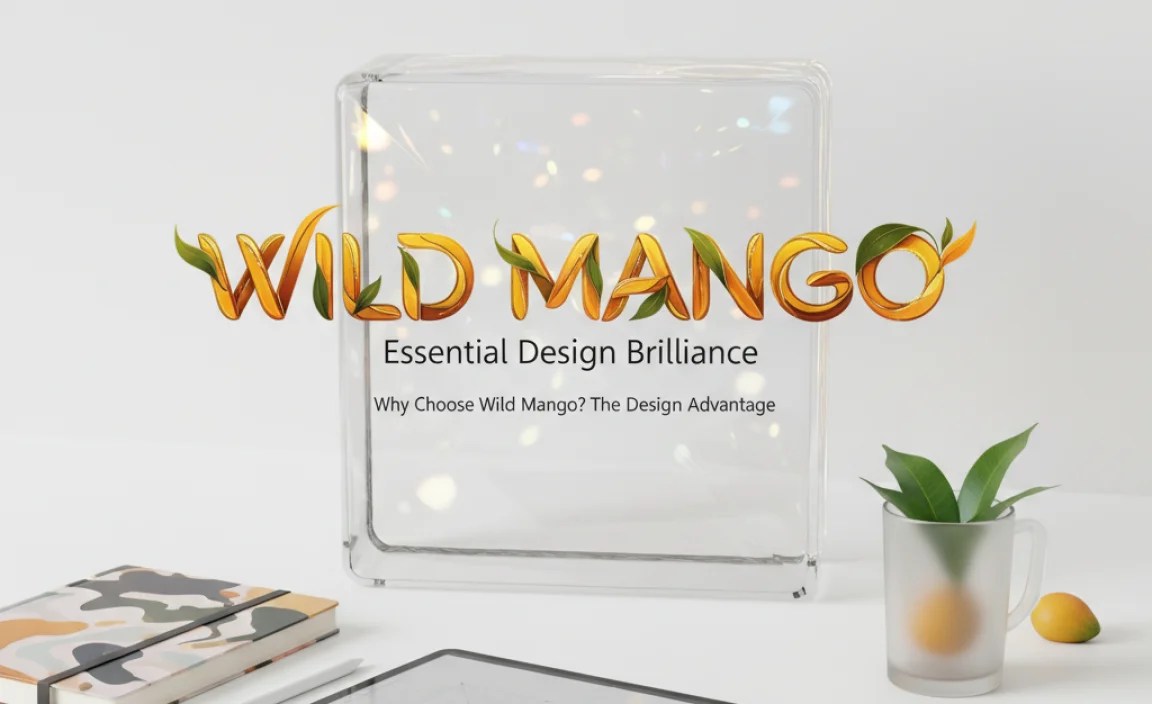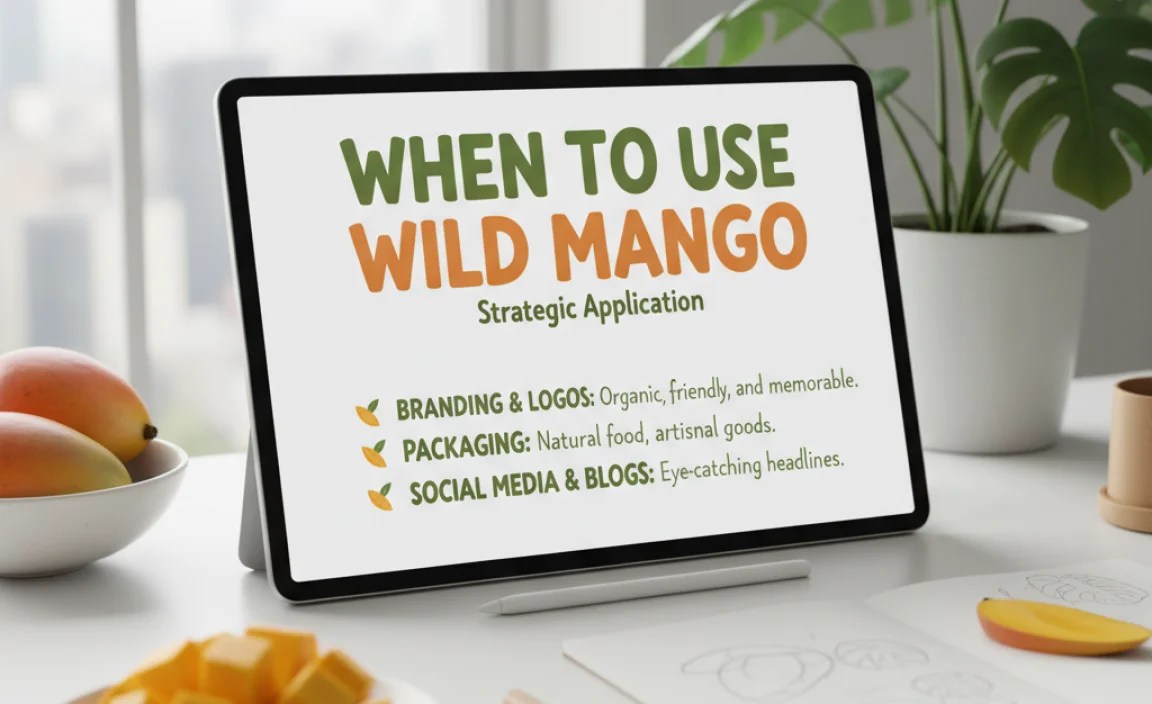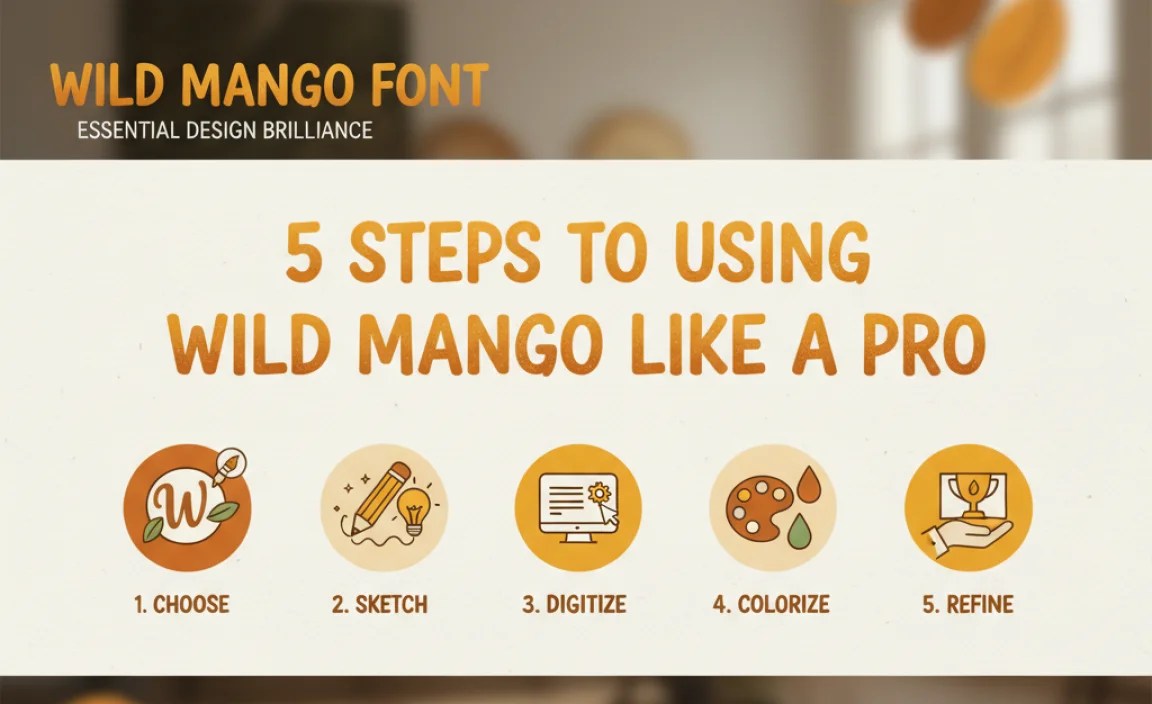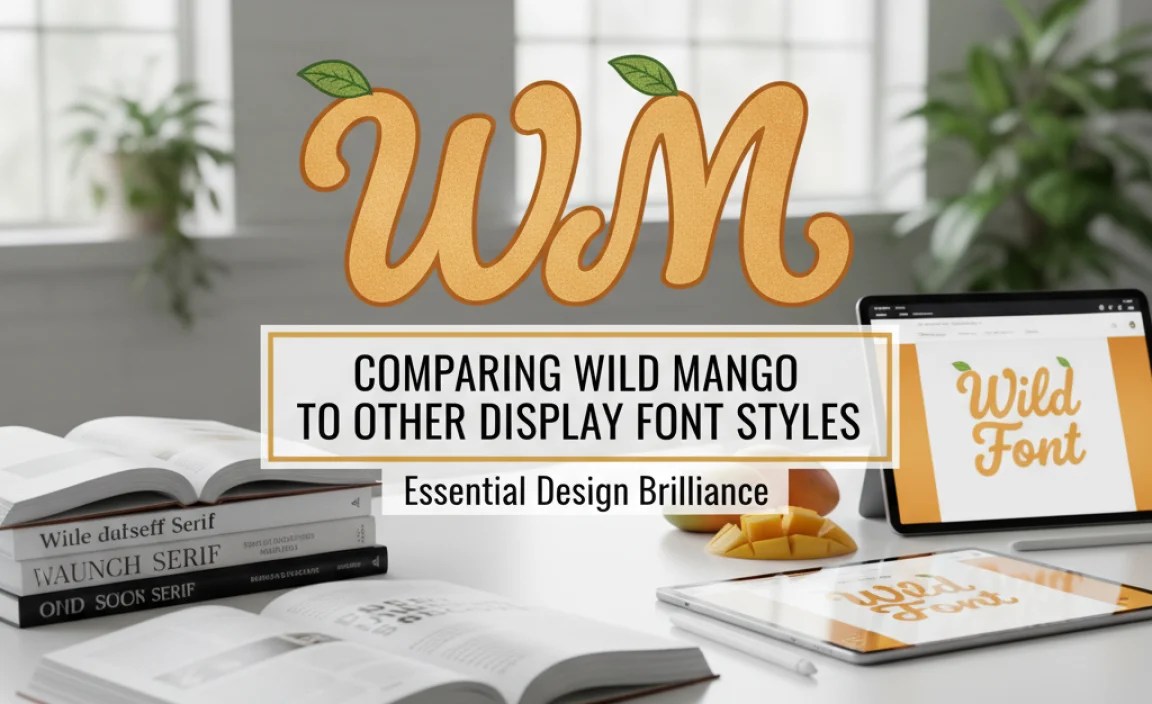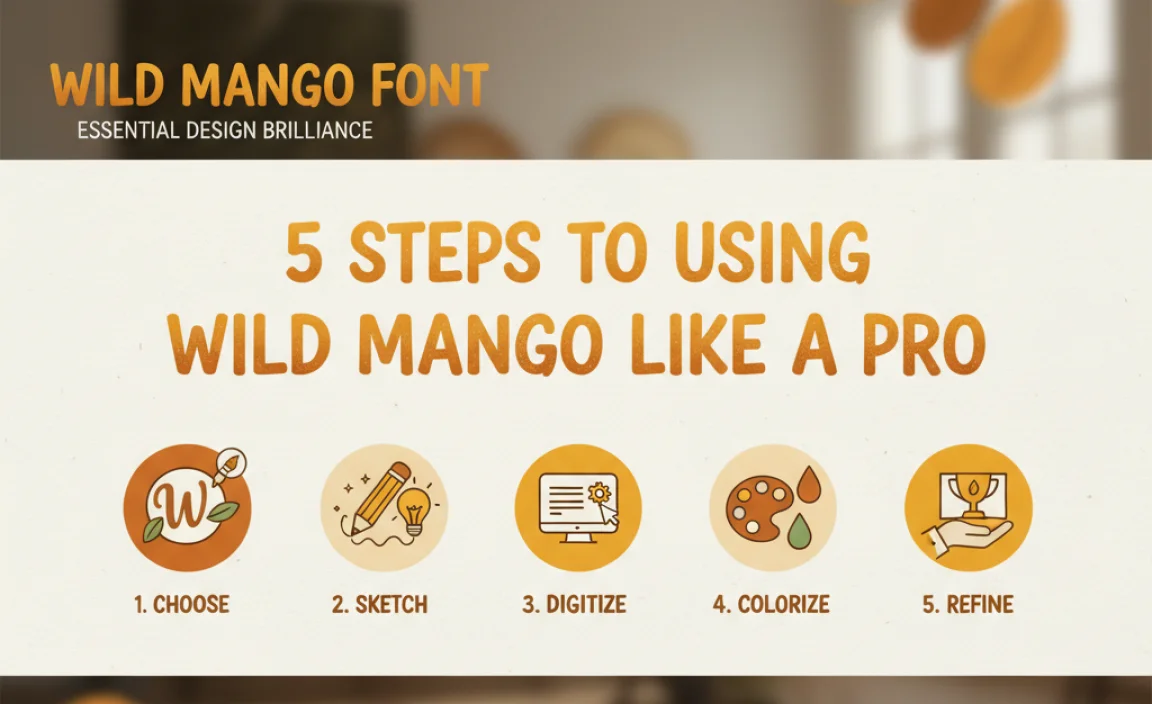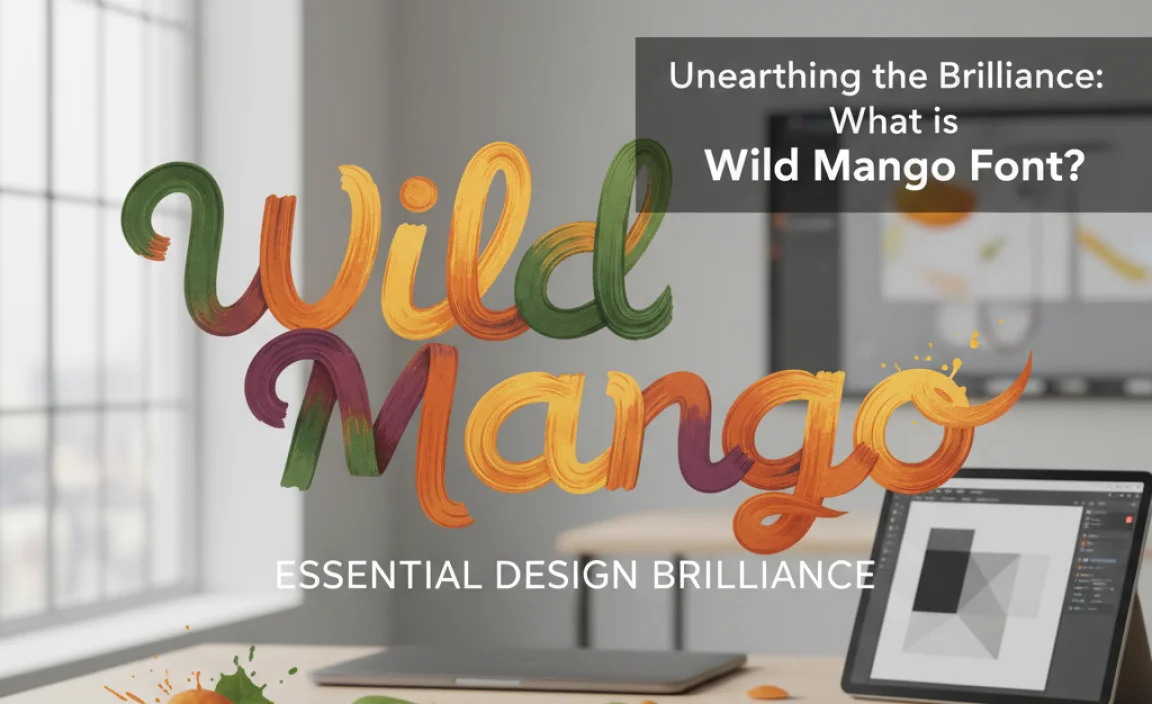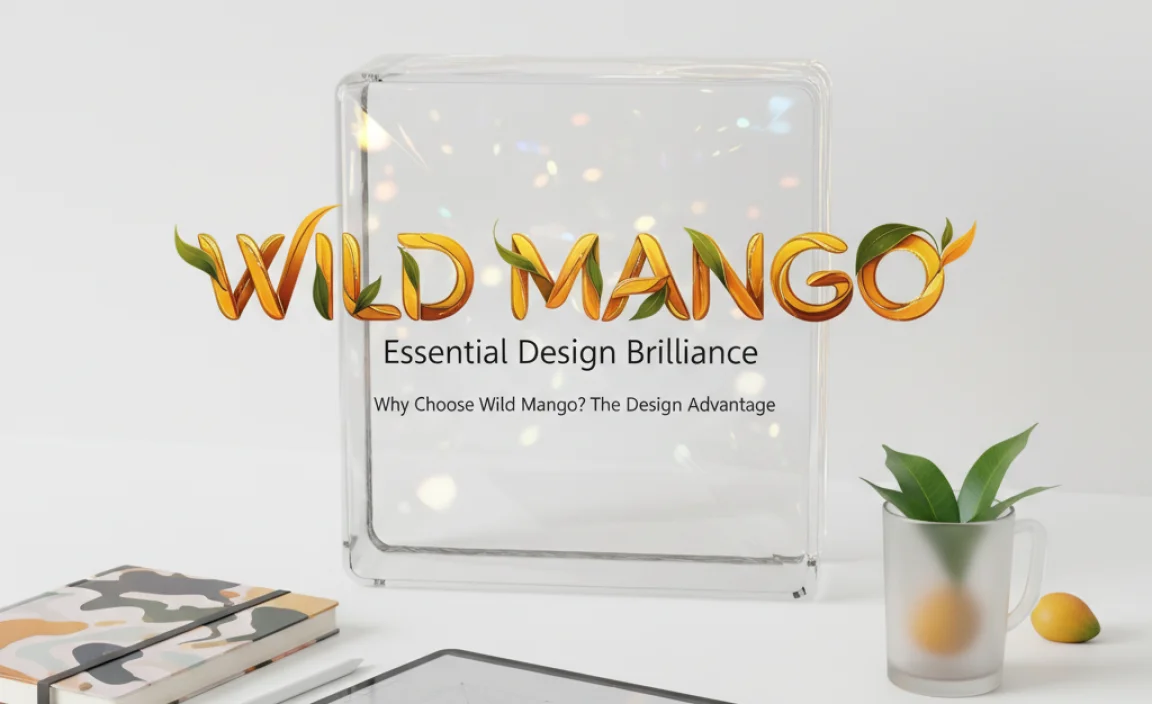
Wild Mango Font is a vibrant, playful, and eye-catching display typeface, perfect for adding personality and a touch of organic charm to branding, headlines, and creative projects where personality is key. Its unique character makes designs memorable and engaging.
Ever feel like your designs are a bit… bland? You’ve got great ideas, but the visuals just aren’t popping. Choosing the right font can feel like cracking a secret code, especially when you want something that truly stands out.
Many creatives struggle to find fonts that balance personality with readability. You want something unique, something that speaks to your brand’s spirit, but you also need it to be easy on the eyes. It’s a common design challenge!
But don’t worry! Today, we’re diving into a font that can inject serious brilliance into your projects. We’ll explore exactly what makes the Wild Mango font special and how you can use it to create stunning designs. Get ready to add a splash of wild creativity to your toolkit!
Unearthing the Brilliance: What is Wild Mango Font?
The Wild Mango font isn’t just another typeface; it’s an experience. Imagine the tang of a perfectly ripe mango, the untamed beauty of nature, and a touch of playful energy all rolled into one. That’s the essence of Wild Mango. It falls into the category of display fonts, meaning it’s designed primarily for impact in larger sizes, like headlines, logos, and short bursts of text, rather than long paragraphs.
Born from a desire to break away from the predictable, Wild Mango often features characteristics that lend it a unique, almost handcrafted feel. Think subtle irregularities, dynamic strokes, and shapes that feel organic and free-spirited. It’s the kind of font that makes people look twice and feel a connection.
It’s not just about looks, though. The brilliance of Wild Mango lies in its versatility when used appropriately. While its primary strength is in grabbing attention, clever designers can harness its energy to convey specific emotions and brand identities. This makes it a powerful tool for those looking to make a distinct visual statement.
The Anatomy of Wild Mango: Key Design Features
What exactly gives Wild Mango its distinctive personality? Let’s break down its key design elements. Understanding these features will help you appreciate why it works so well in specific contexts.
- Organic Shapes & Strokes: Unlike geometric or strictly formal fonts, Wild Mango often incorporates curves and lines that mimic natural forms. This can give it a fluid, hand-drawn, or brushed appearance.
- Playful Variations: You might notice slight variations in stroke thickness, baseline shifts, or letter heights. These imperfections aren’t flaws; they’re intentional design choices that contribute to its unique, approachable character.
- Expressive Modifiers: Often, display fonts like Wild Mango come with a range of stylistic alternates, swashes, or ligatures. These can add extra flair and customization, allowing for a truly unique typographic composition.
- Bold & Impactful: Its design is typically robust, ensuring it stands out even next to strong imagery or other design elements. This makes it ideal for headers and titles that need to command attention.
- Sense of Movement: The flow of the letters, the curves, and the overall structure can create a feeling of dynamism and energy. It’s a font that feels alive and engaging.
Where Does Wild Mango Come From? Understanding Font Families
It’s important to note that “Wild Mango” might refer to a specific font created by a particular designer, or it could be a style descriptor for a family of fonts that share similar characteristics. When you’re looking for this kind of font, you might encounter variations or fonts with similar wild, organic vibes. Designers often create font families with different weights (light, regular, bold) and styles (italic, condensed) to offer more flexibility. If you find a “Wild Mango” by one foundry, exploring others that offer “wild,” “organic,” or “brush script” styles can lead to similar, equally brilliant results.
Why Choose Wild Mango? The Design Advantage
In a world saturated with visual information, standing out is crucial. The Wild Mango font offers a distinct advantage for designers and brands seeking to make a memorable impression. It’s not about fitting in; it’s about embracing a unique identity.
Here’s why this font can be a game-changer:
- Injects Personality: If your brand or project needs to feel fun, energetic, exotic, or simply less corporate, Wild Mango can instantly inject that desired personality. It breaks the monotony of standard sans-serifs and serifs.
- Boosts Memorability: Unique fonts create memorable touchpoints. When users encounter a highly distinctive font like Wild Mango in a logo or headline, they are more likely to remember the brand or message.
- Conveys Emotion: The organic, flowing nature of Wild Mango can evoke feelings of happiness, freedom, creativity, and warmth. It’s a visual cue for the brand’s attitude and values.
Whether you’re crafting a memorable logo, designing an eye-catching headline, or building a brand that speaks volumes, Wild Mango offers that essential touch of brilliance. Don’t shy away from fonts that have character. Embrace them, experiment, and let your designs tell a compelling story.
So go ahead, explore the wild side of typography. Your next brilliant design awaits!